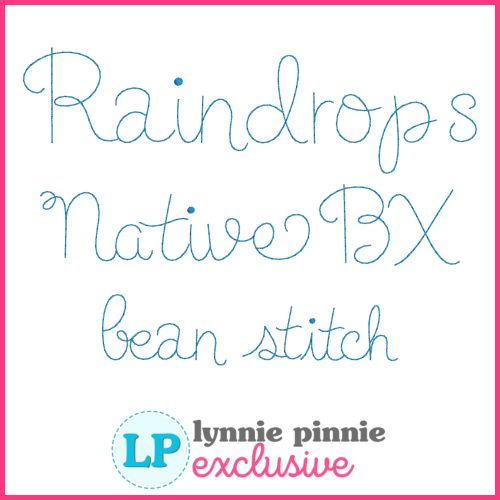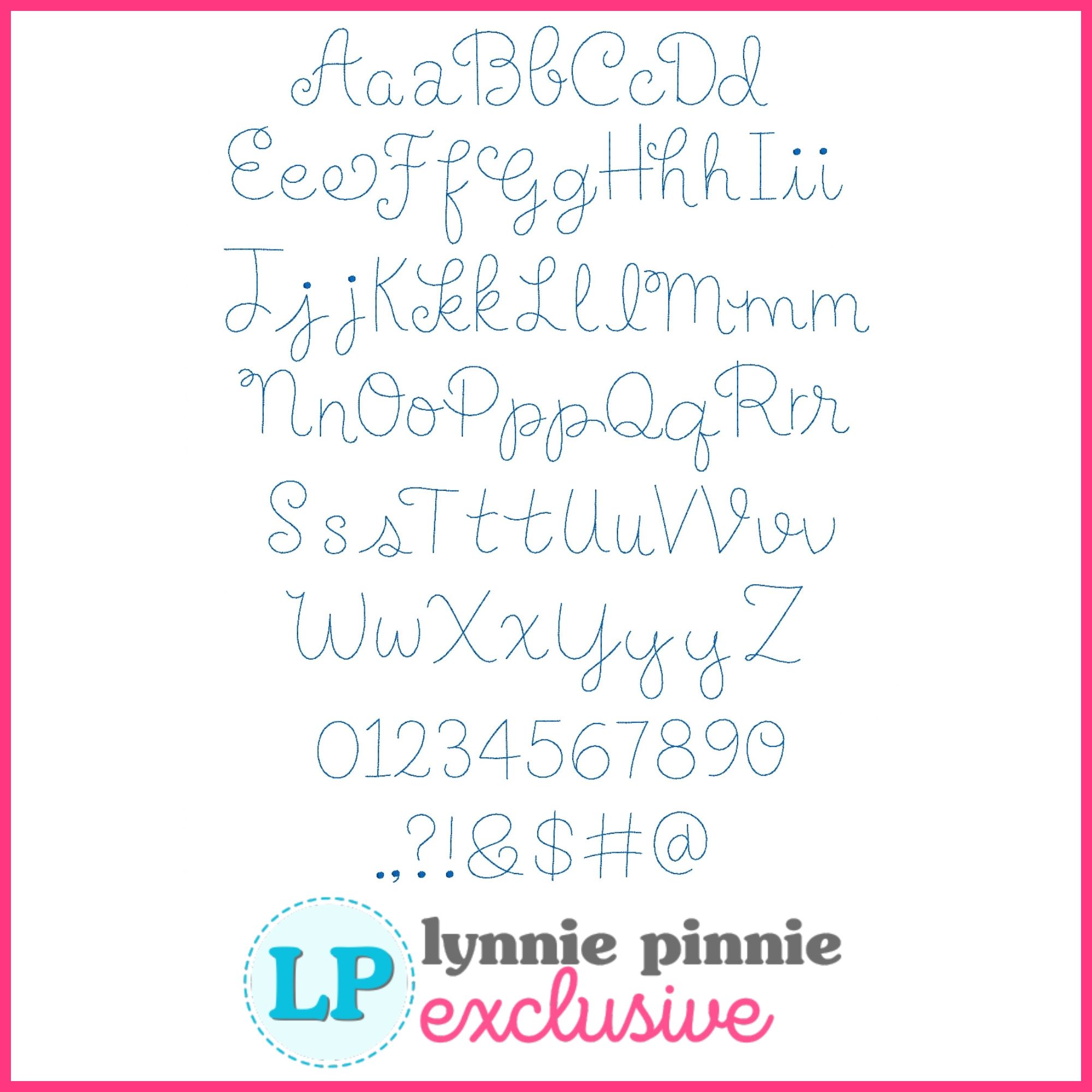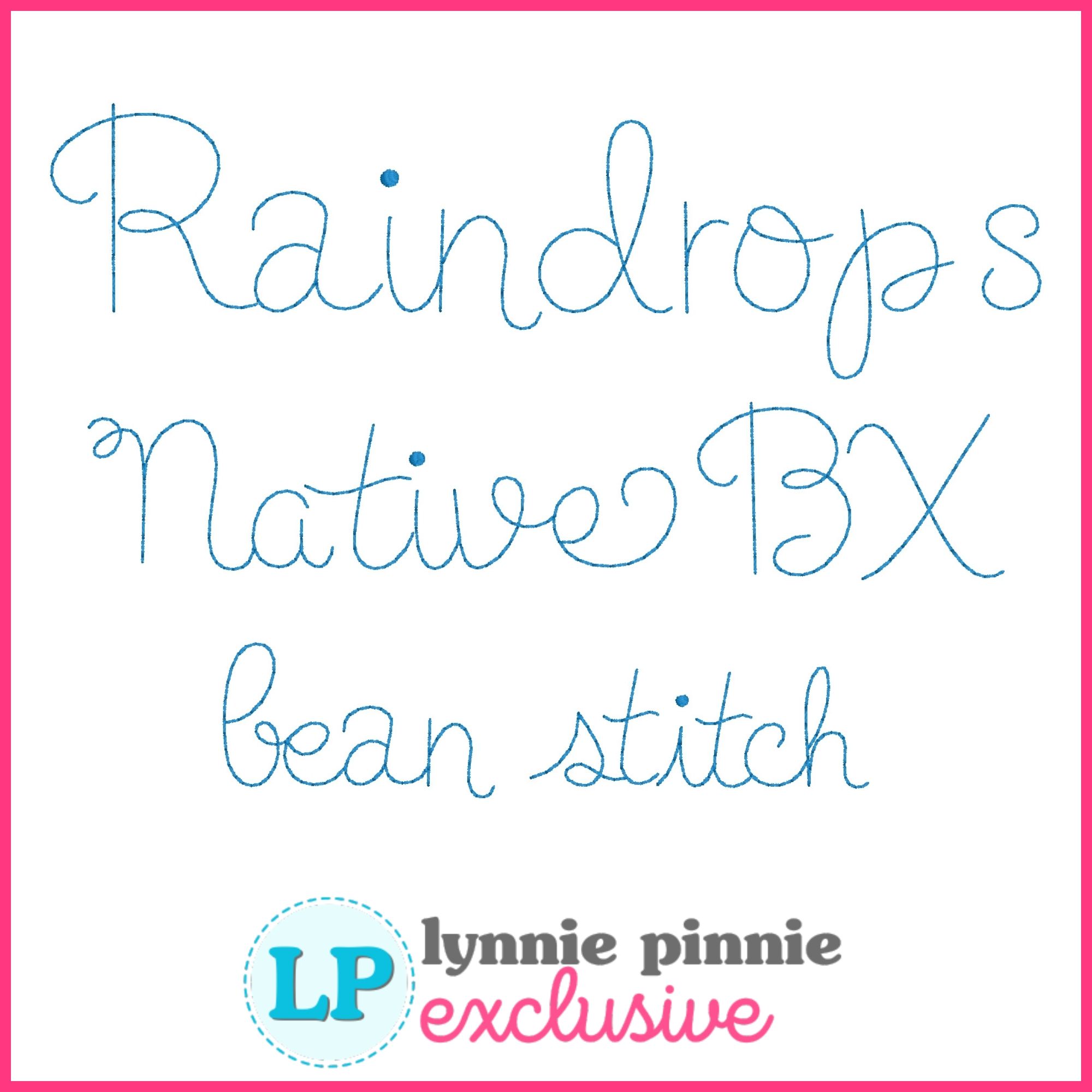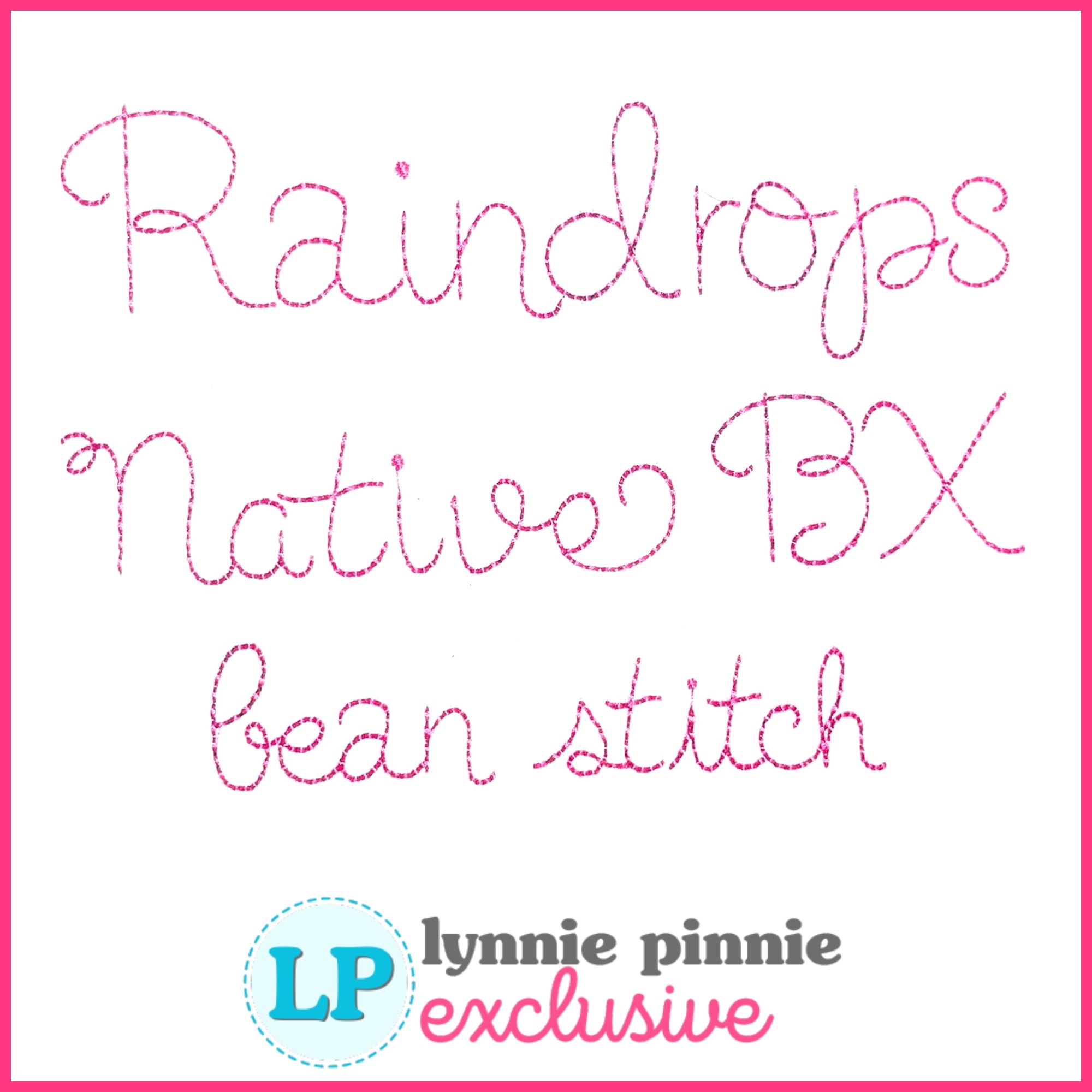
Raindrops Hand Lettered Bean Stitch Machine Embroidery Font – 6 Sizes + Scalable Native BX File
Raindrops Bean Stitch is an uppercase and lowercase bean stitch machine embroidery font that also includes numbers and punctuation. Alternates are included for several letters.